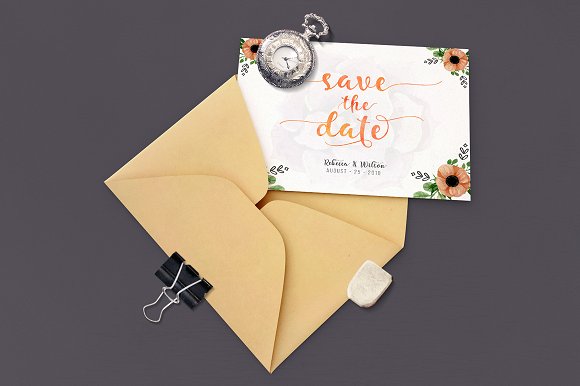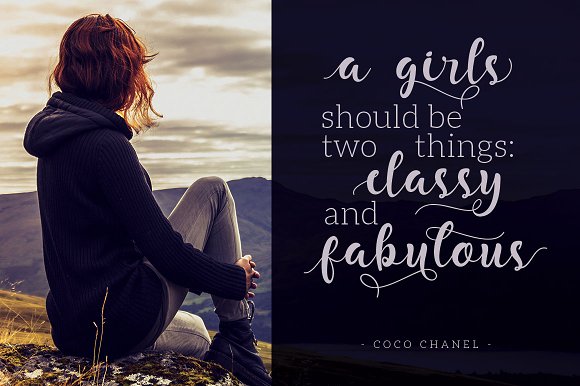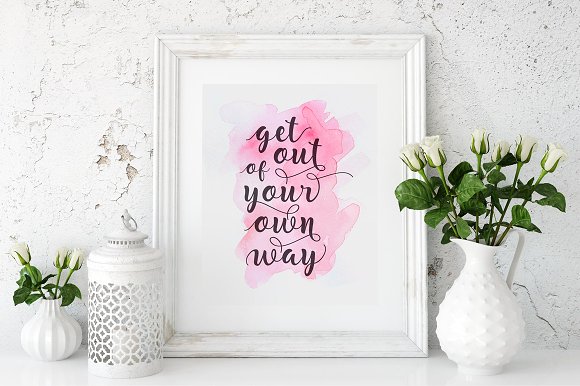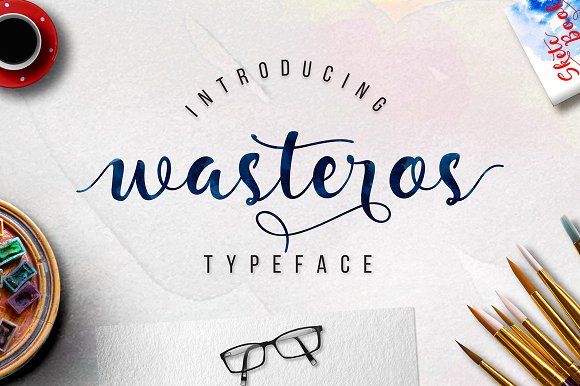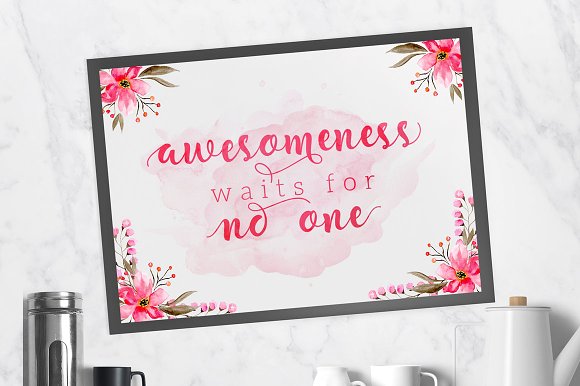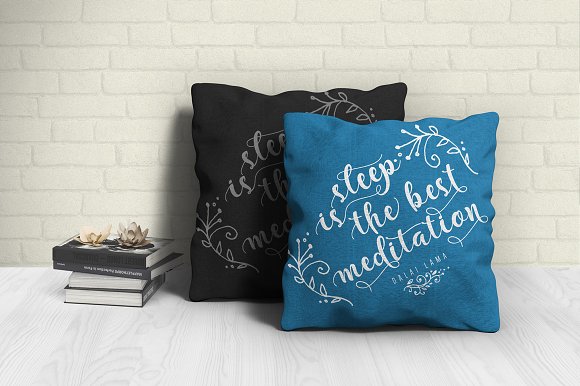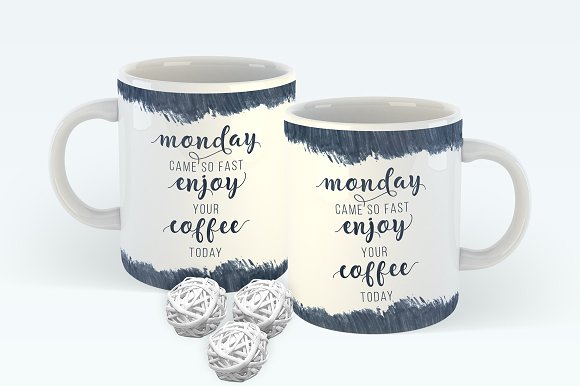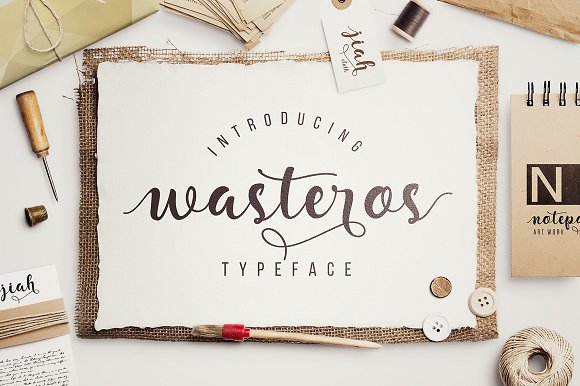
Wasteros Typeface
Wasteros Typeface is a modern hand-brush script font based, made with a brush that is then refined with pen. This font consists of letters that flows irregularly, either between top-down and with the letter afterwards, which makes it suitable for Logotype, posters, businness card, merchandise, wedding invitations, greeting cards, blog banners, apparel, design of water-based paints/prints, correspondence, quotes and a variety of other!